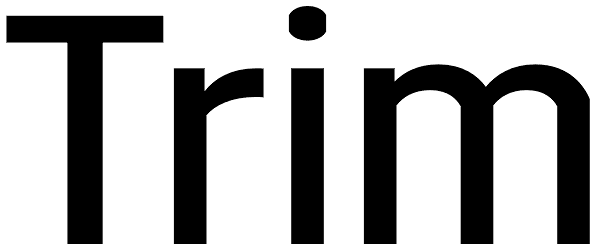
Trim
Knud V. Engelhardt (1882–1931) was an architect, printer and designer from the country of our laid back neighbors, Denmark. Knud’s characteristic letter forms have already made a strong impression on some modern typefaces. Most notably is probably...